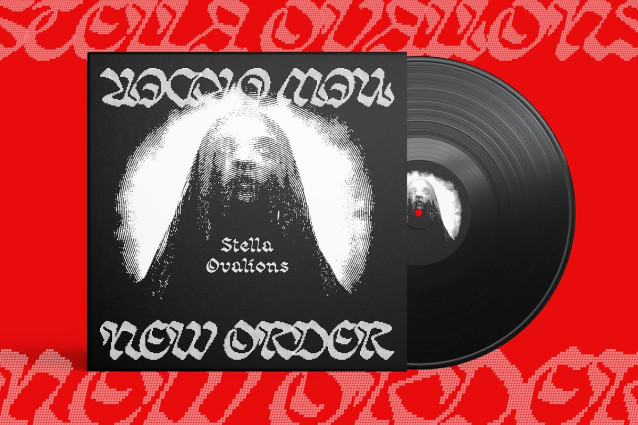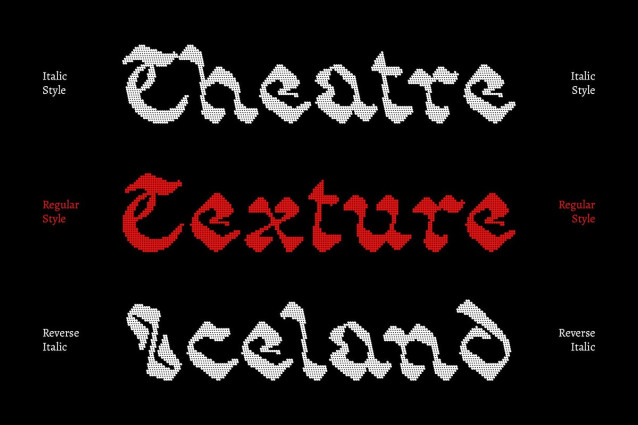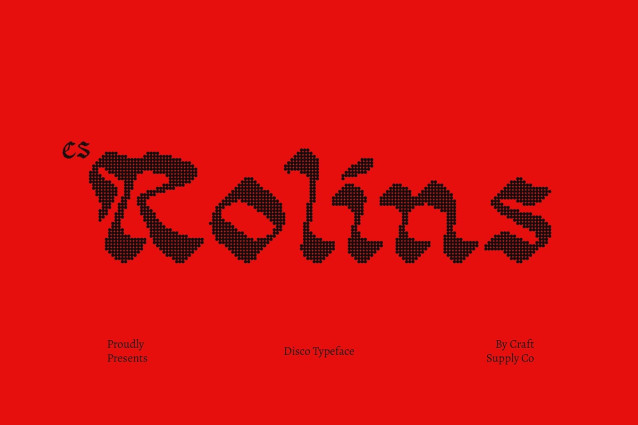
CS Rolins Disco Font
CS Rolins Disco Font – This is a decorative Blackletter font that carries the timeless strength of Gothic tradition while embracing modern flair. With its bold, dramatic strokes and intricate details, it conveys power, mystery, and sophistication, making it a striking choice for eye-catching design.
Disco Effect for Sparkle and Glamour What sets This font apart is its disco-inspired effect. This shimmering touch infuses the bold Blackletter structure with glamour, adding a radiant personality that shines in any setting. It combines the darkness of tradition with the brilliance of disco, creating a truly distinctive visual impact.
Perfect for Posters, Branding, and Party Themes Designed to capture attention, this font thrives in party designs, event posters, and bold branding. Its combination of classic Gothic drama and dazzling disco glow makes it ideal for projects that demand a balance of mystery and celebration.
Aesthetic Blend of Classic and Contemporary This font bridges eras by merging Blackletter’s historic gravitas with a modern disco aesthetic. The result is a font that feels both classic and fresh, versatile enough to elevate creative projects while ensuring they remain memorable and unique.